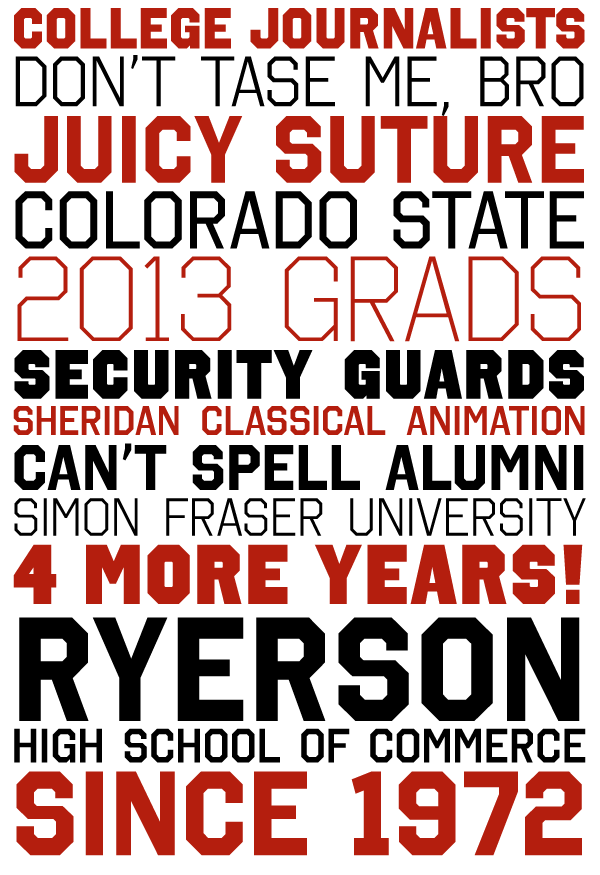
Octin College is a tough headliner available in 7 weights: light, book, regular, semi-bold, heavy & black. Octin College isn’t just for school; it’s also great for prison, sports, construction, police or military themes. Check out the rest of the Octin families: Octin Sports, Octin Prison, Octin Stencil, Octin Vintage & Octin Spraypaint This font includes a license that allows free commercial use: sometimes referred to as a desktop license. This allows you to install the font on a computer and use it to create posters, web graphics, game graphics, t-shirts, videos, signs, logos and more. Read the license agreement for details. If you'd like to embed this font in an app, ebook, on the web or anything that's not covered by the desktop license agreement, visit the link below. You'll find distributors who offer different types of licenses or you can contact me for help. http://typodermicfonts.com/the-octin-font-families/ This free font is part of a larger font family. Check out the rest of the family through the link above. |